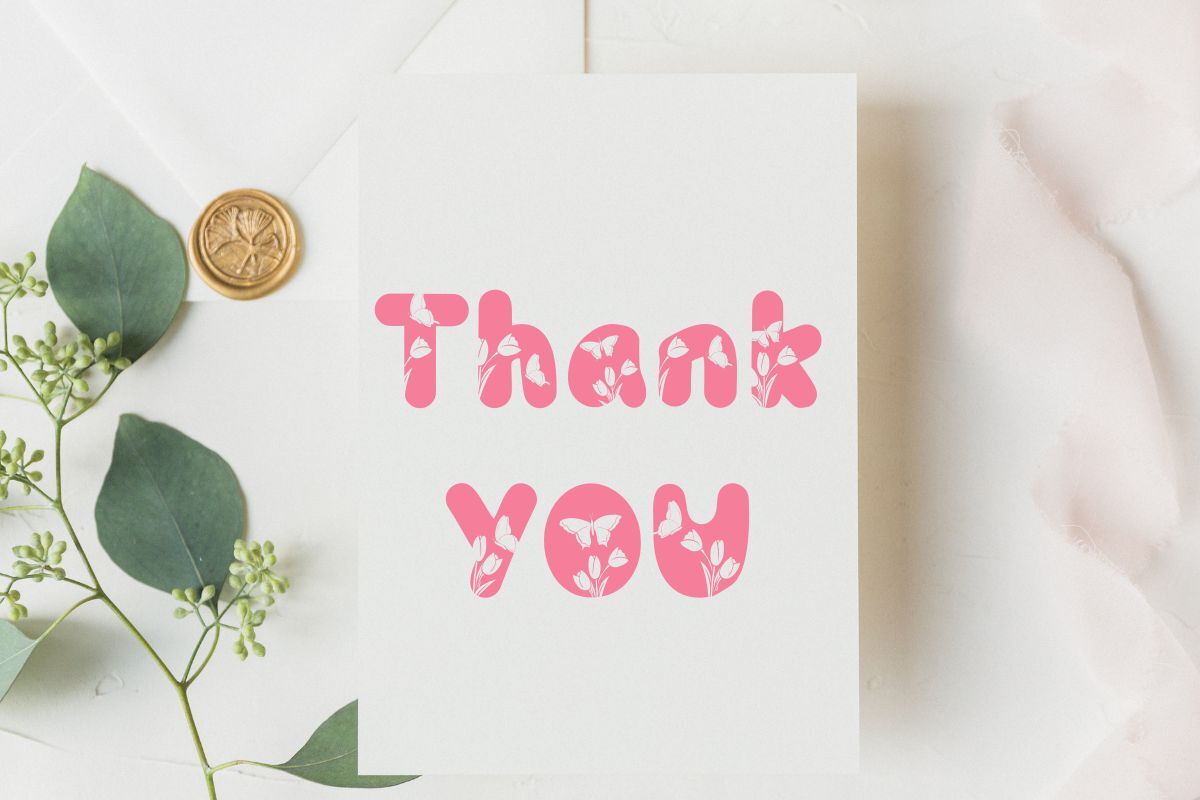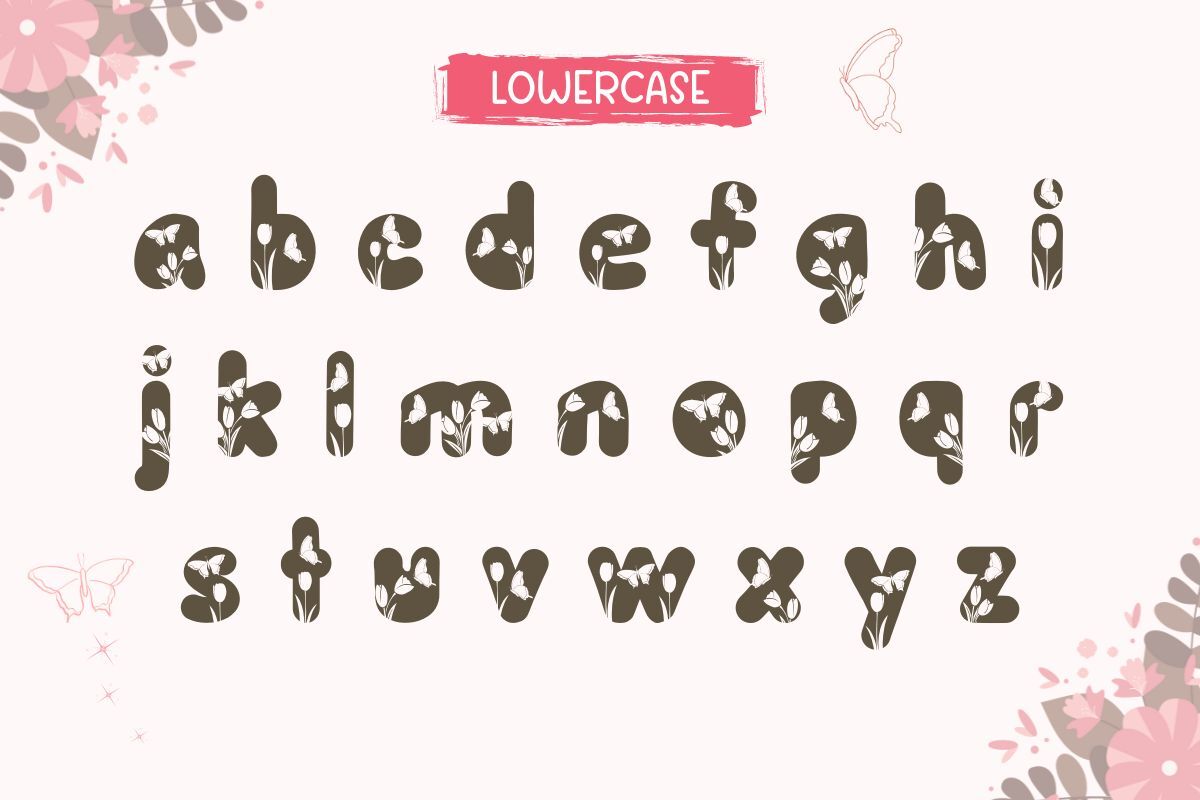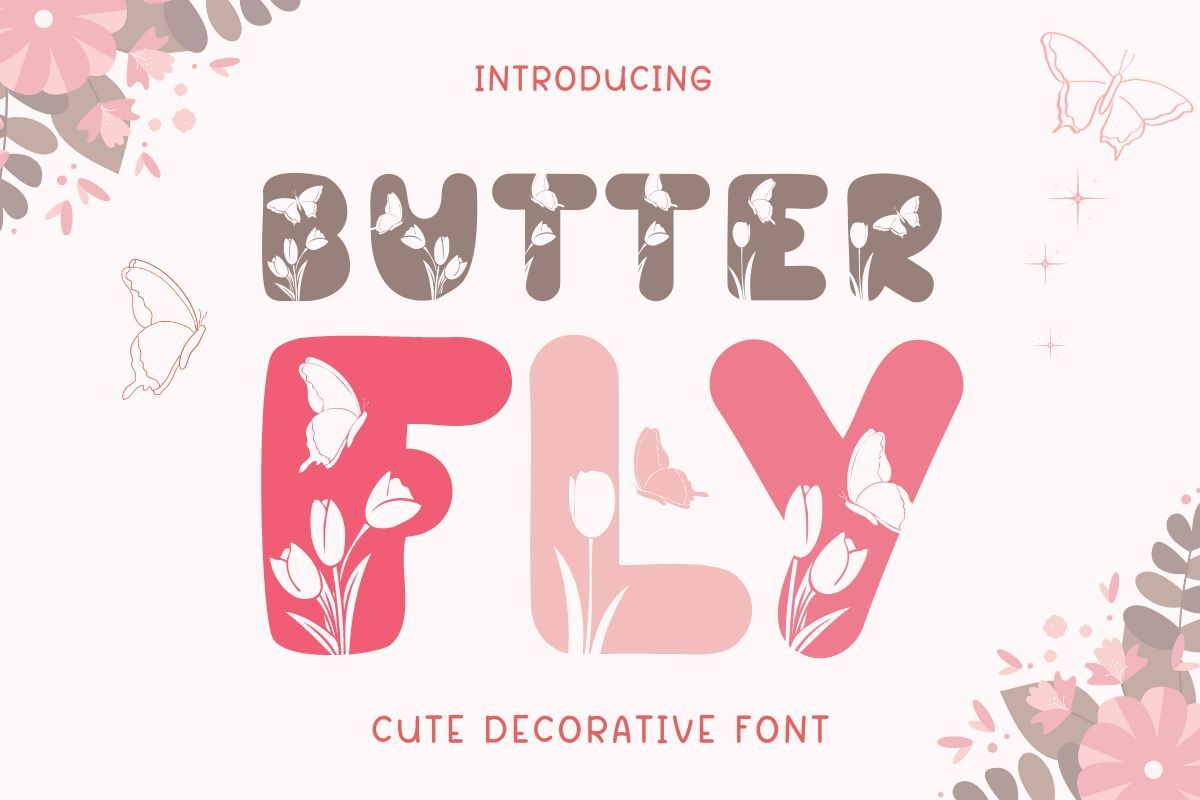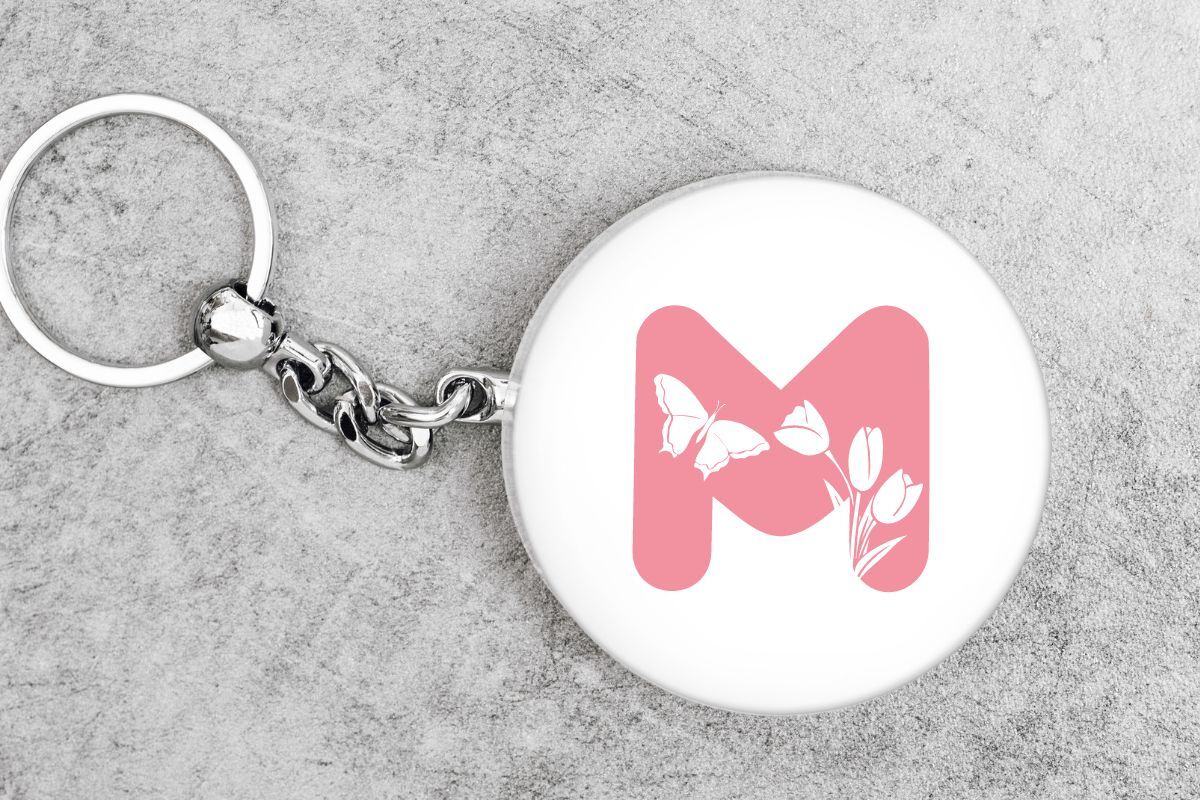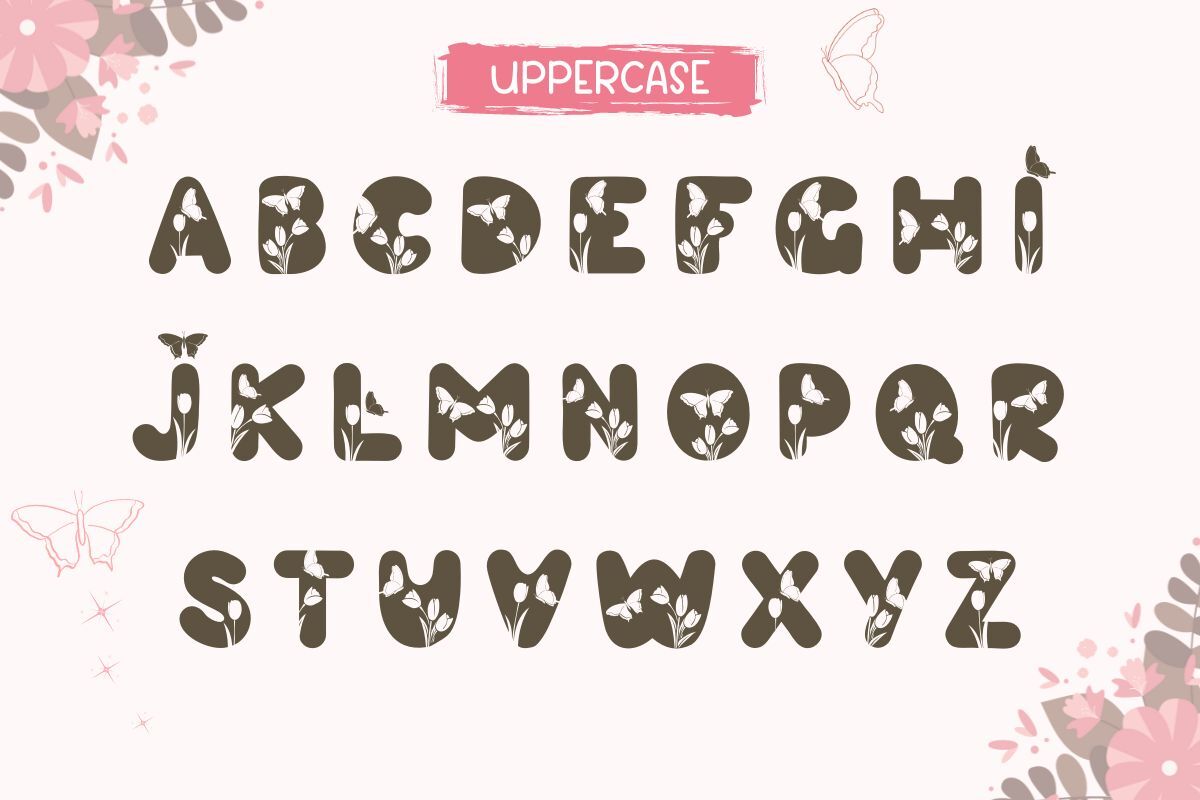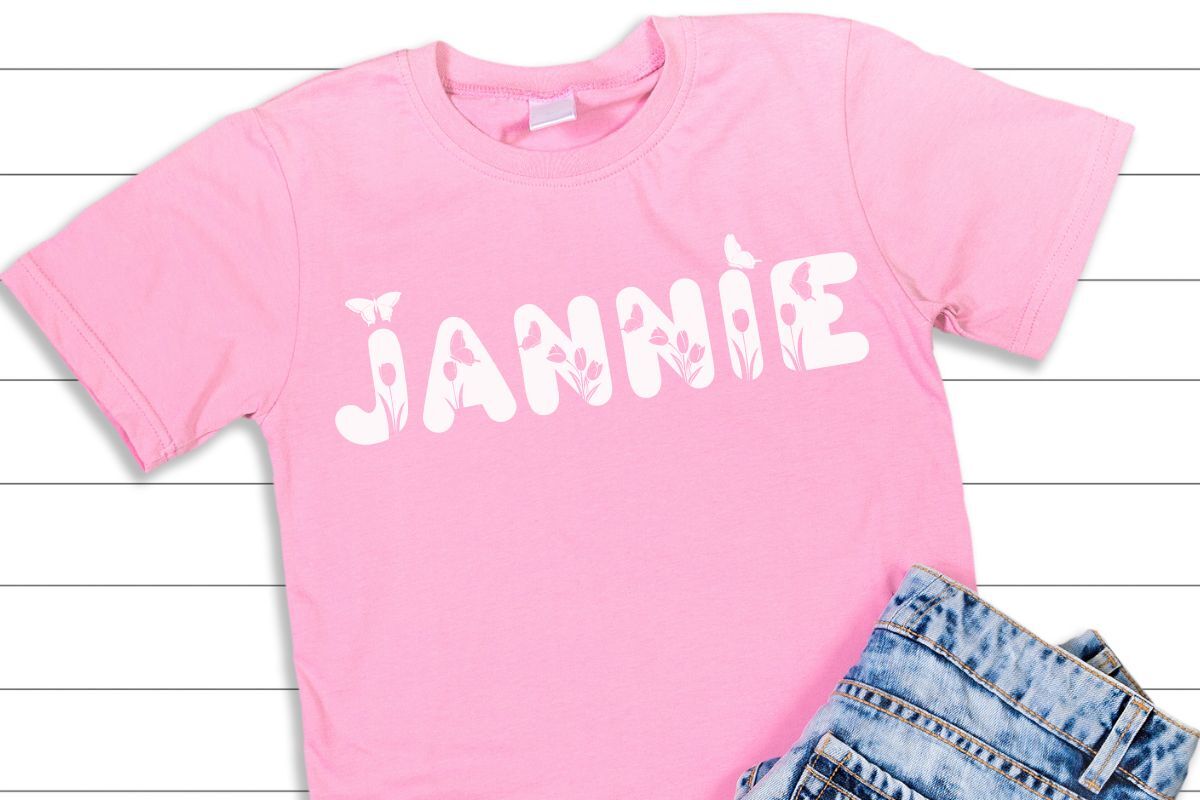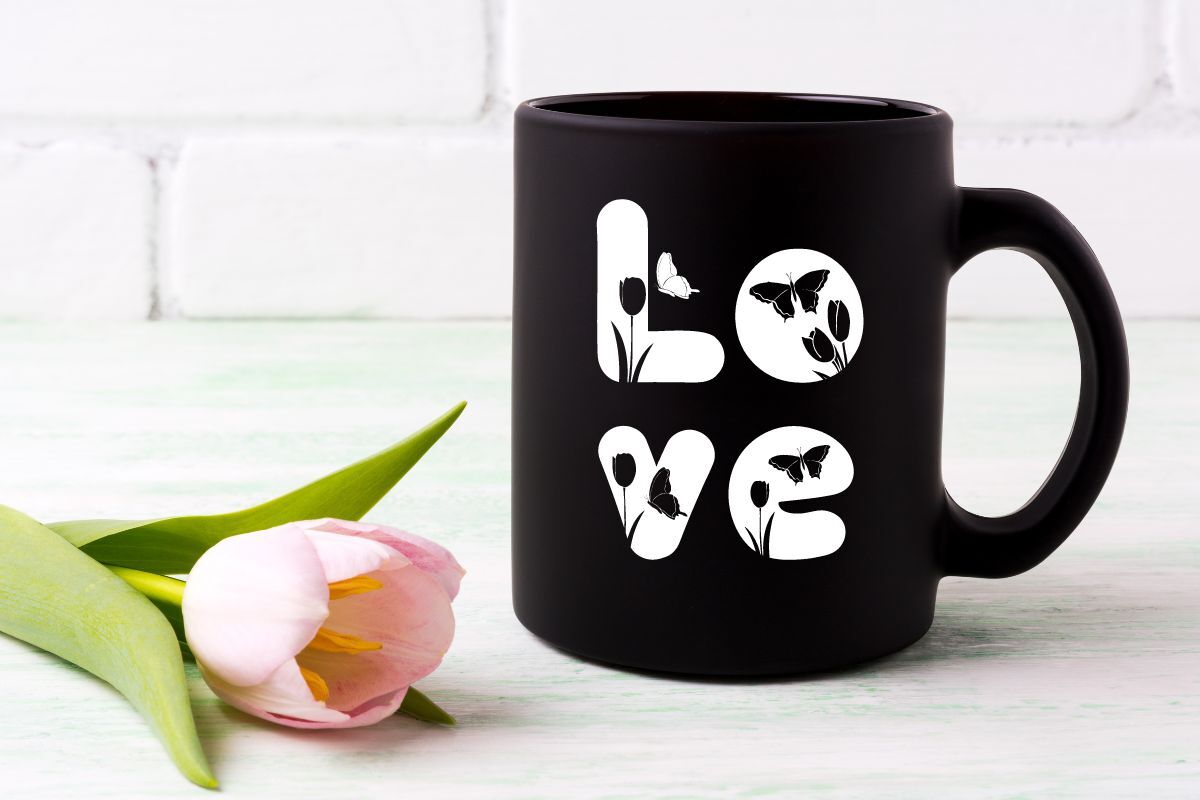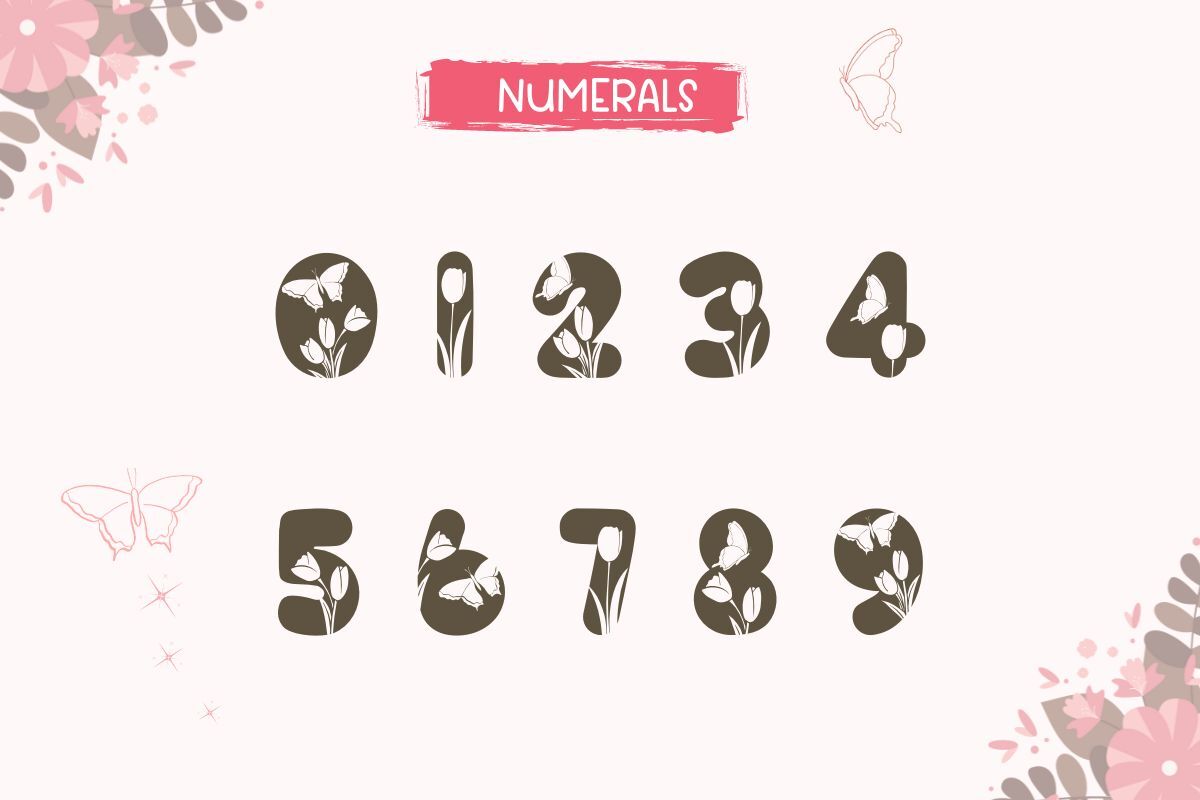
Butterfly - Cute Decorative Font
Butterfly, a cute decorative font inspired by the beauty of nature. Each letter is designed with delicate butterflies and tulip flowers, making this font perfect for adding a soft, whimsical, and feminine touch to your projects. Butterfly is an excellent choice for wedding invitations, greeting cards, branding, t-shirts, mugs, tote bags, and seasonal crafts. Its unique design blends playful charm with elegant decoration, making it stand out in both print and digital projects.